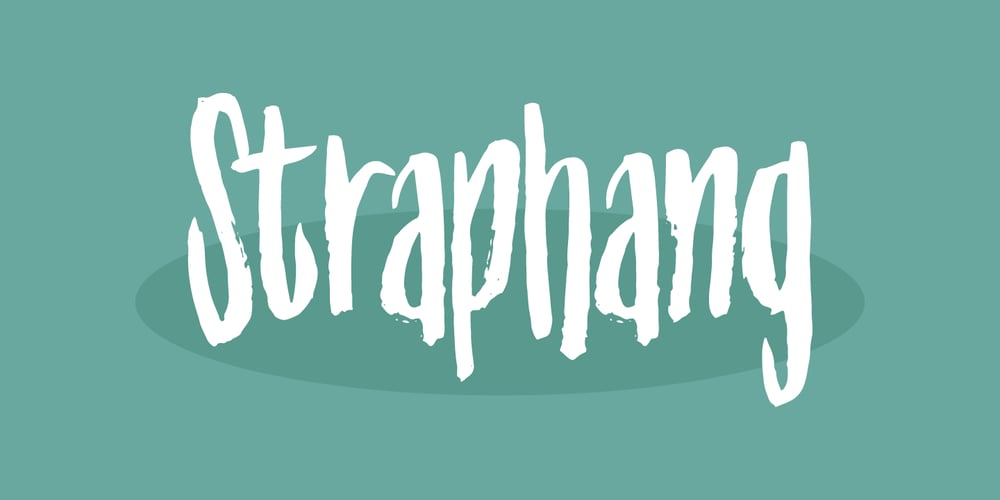
Straphang Font Family was designed by Jakob Fischer and published by PizzaDude.dk. Straphang contains 1 styles and family package options. Straphand is my idea of what you need for your next greeting card, invitation, poster or whatever needs a fresh and lovely brush! Looks awesome, even when written in ALL CAPS! Comes with extended language support and ligatures for double lettering!